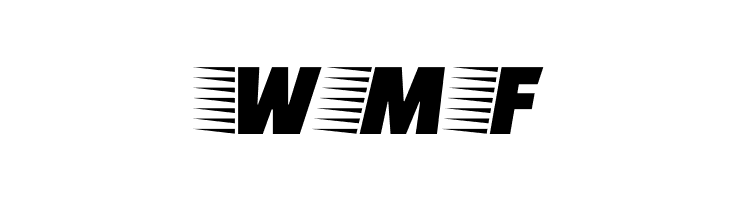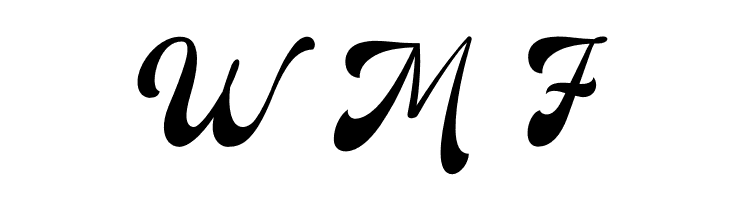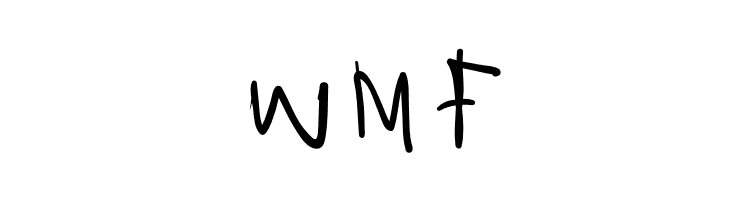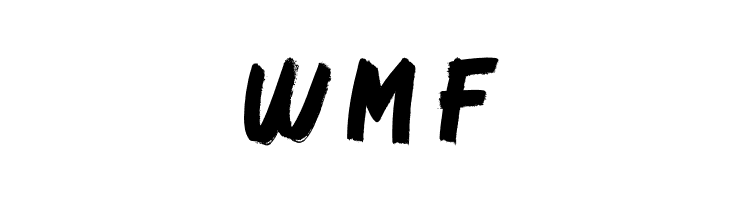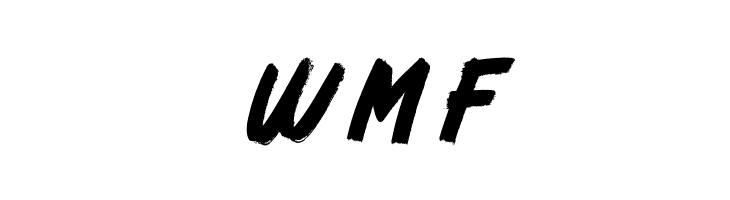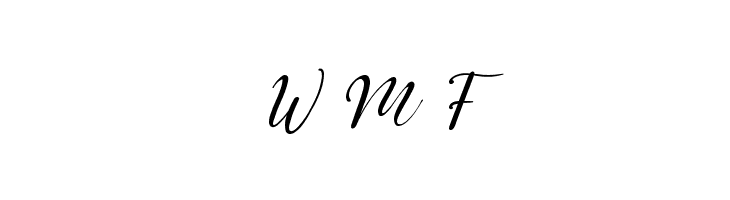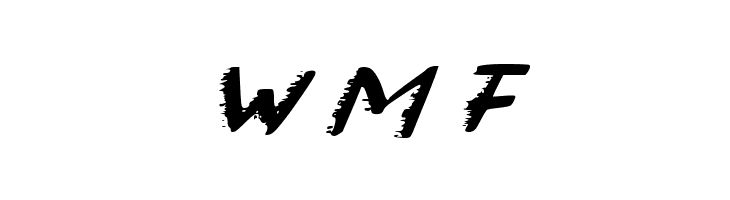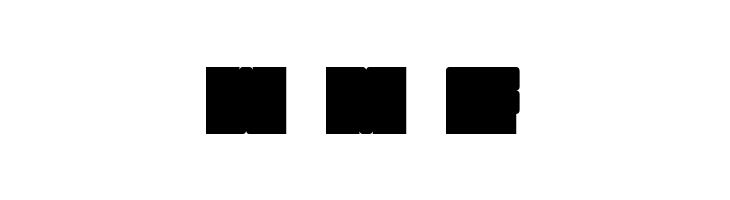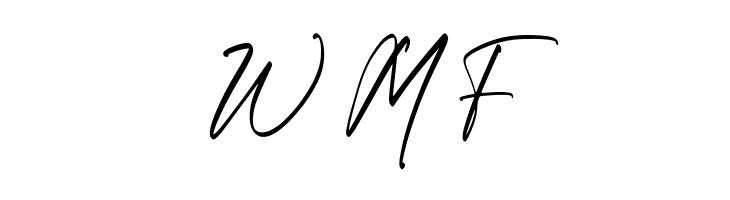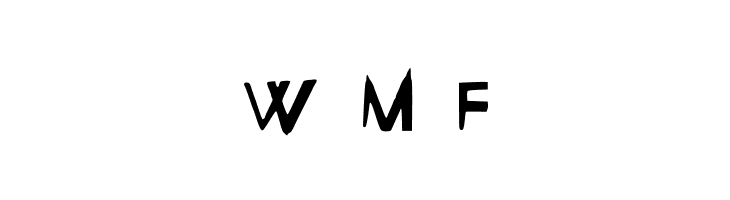
Faster One Font
A bold, slanted font with a dynamic, speedy appearance.
America Faster Font
A bold, modern font with geometric and futuristic elements.
America Faster Light Font
A modern, geometric font with clean lines and consistent stroke widths.
Faster Bottom Font
A playful and elegant handwritten script font with dynamic strokes.
Oil Makes You Run [Faster] Font
A bold, hand-painted style font with a rugged, textured appearance.
America Faster Light Italic Font
A sleek, modern italic sans-serif font with a light weight and tight character spacing.
Faster Font
A playful, bold font with a hand-drawn, dynamic style.
America Faster Gradient Font
A bold, modern font with a gradient effect created by horizontal lines, conveying motion and energy.
America Faster 3D Font
A bold, 3D outlined font with a modern, geometric style.
Fastero Font
A bold, brush-style font with dynamic, slanted characters.
Fasterisq Font
A futuristic, geometric font with rounded edges and a sci-fi aesthetic.
Go Faster Regular Font
A futuristic, angular font with a bold, geometric design.
FasterStronger Font
A dynamic, edgy font with sharp, angular strokes and a gritty, rebellious feel.
Better Faster Italic Font
A bold, brush script font with dynamic, italicized strokes.
Go Faster Brush Font
A bold, brush-style font with dynamic and energetic strokes.
Faster Bottom Italic Font
A flowing, elegant script font with an italic slant and artistic curves.
Good Faster PERSONAL USE Regular Font
A bold, flowing script font with elegant, cursive letterforms.
Better Faster Font
A bold, brush script font with dynamic and expressive strokes.
Delmate Fasteria Font
Expressive handwritten script with dynamic, flowing strokes.